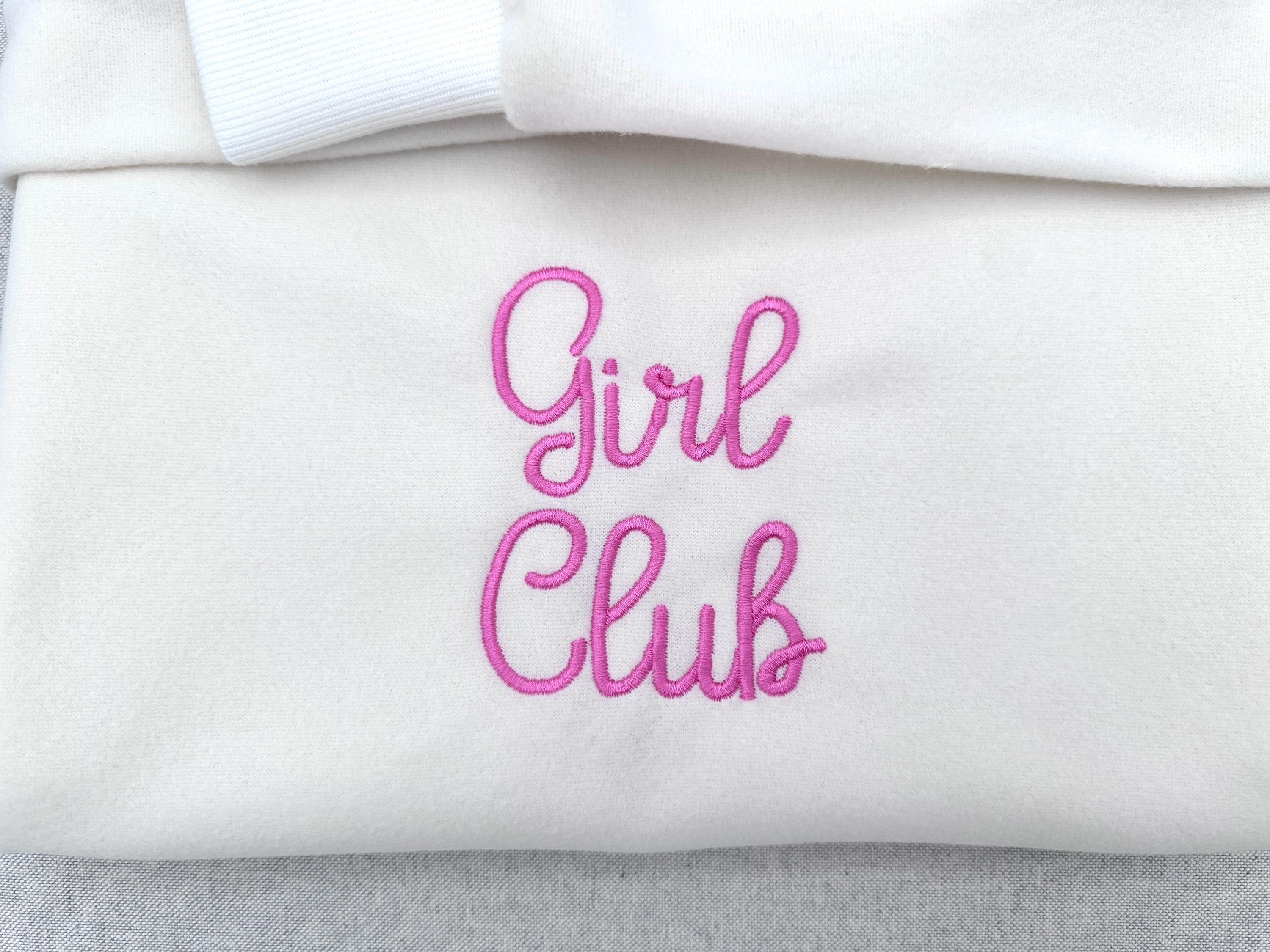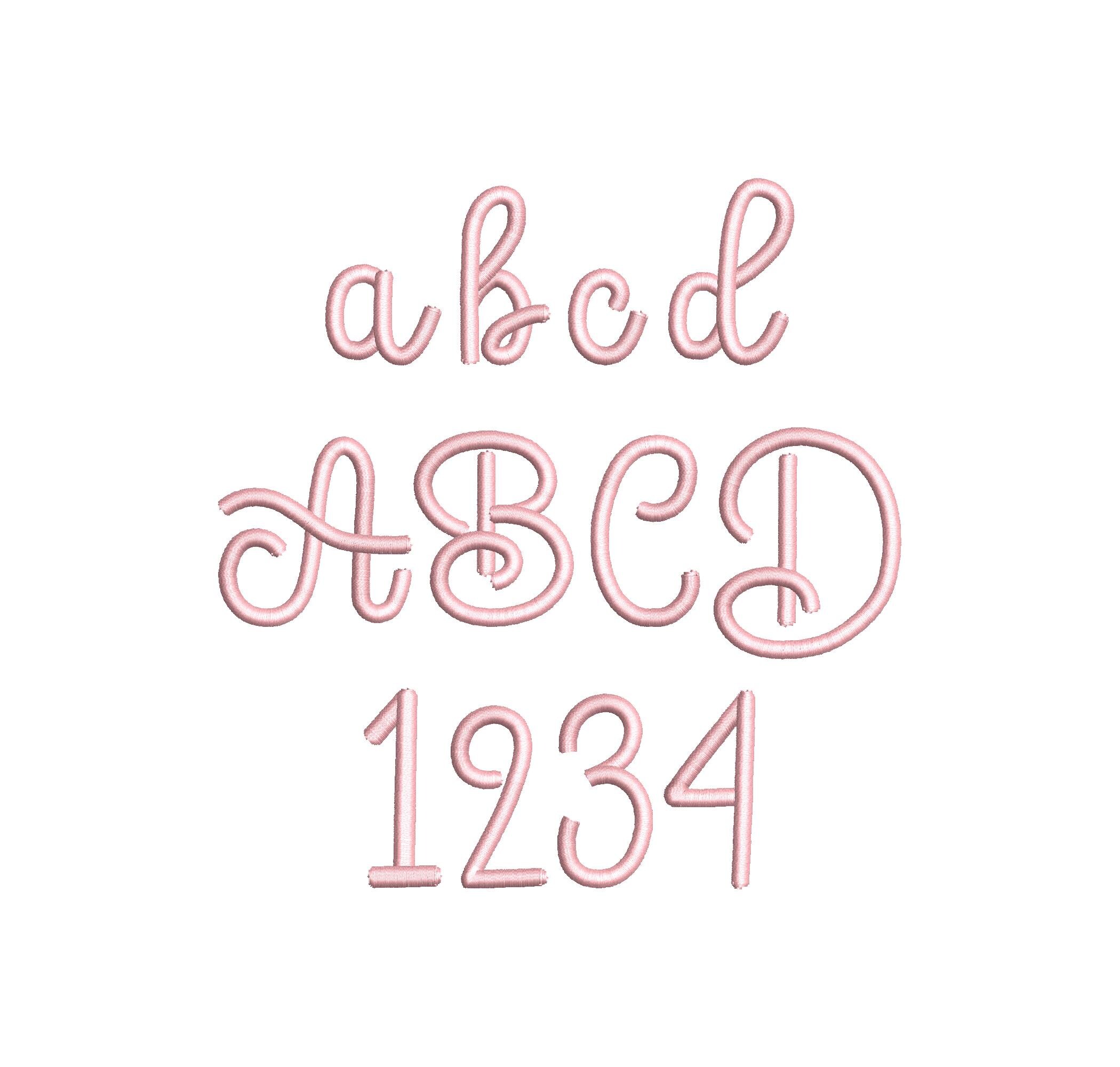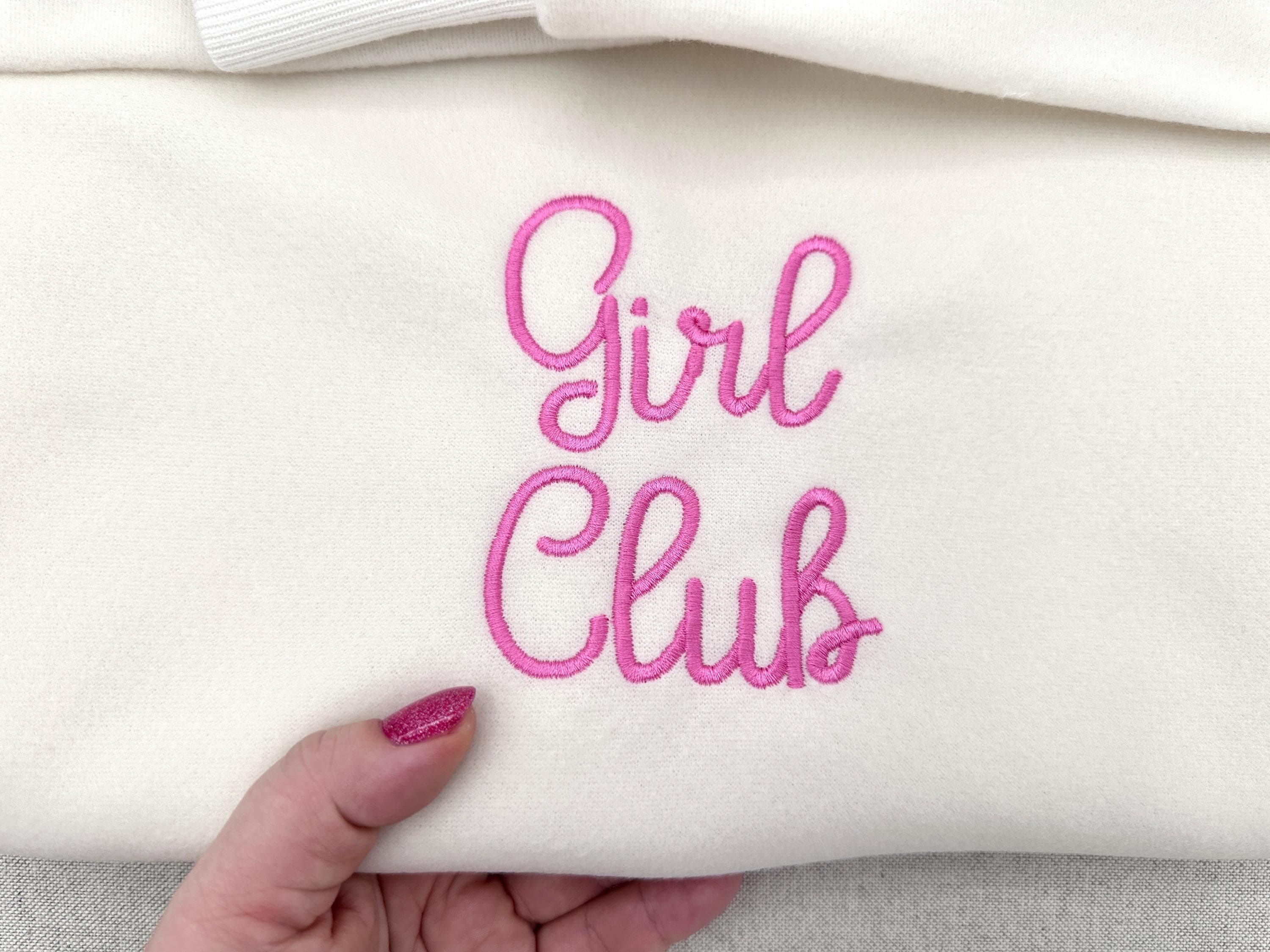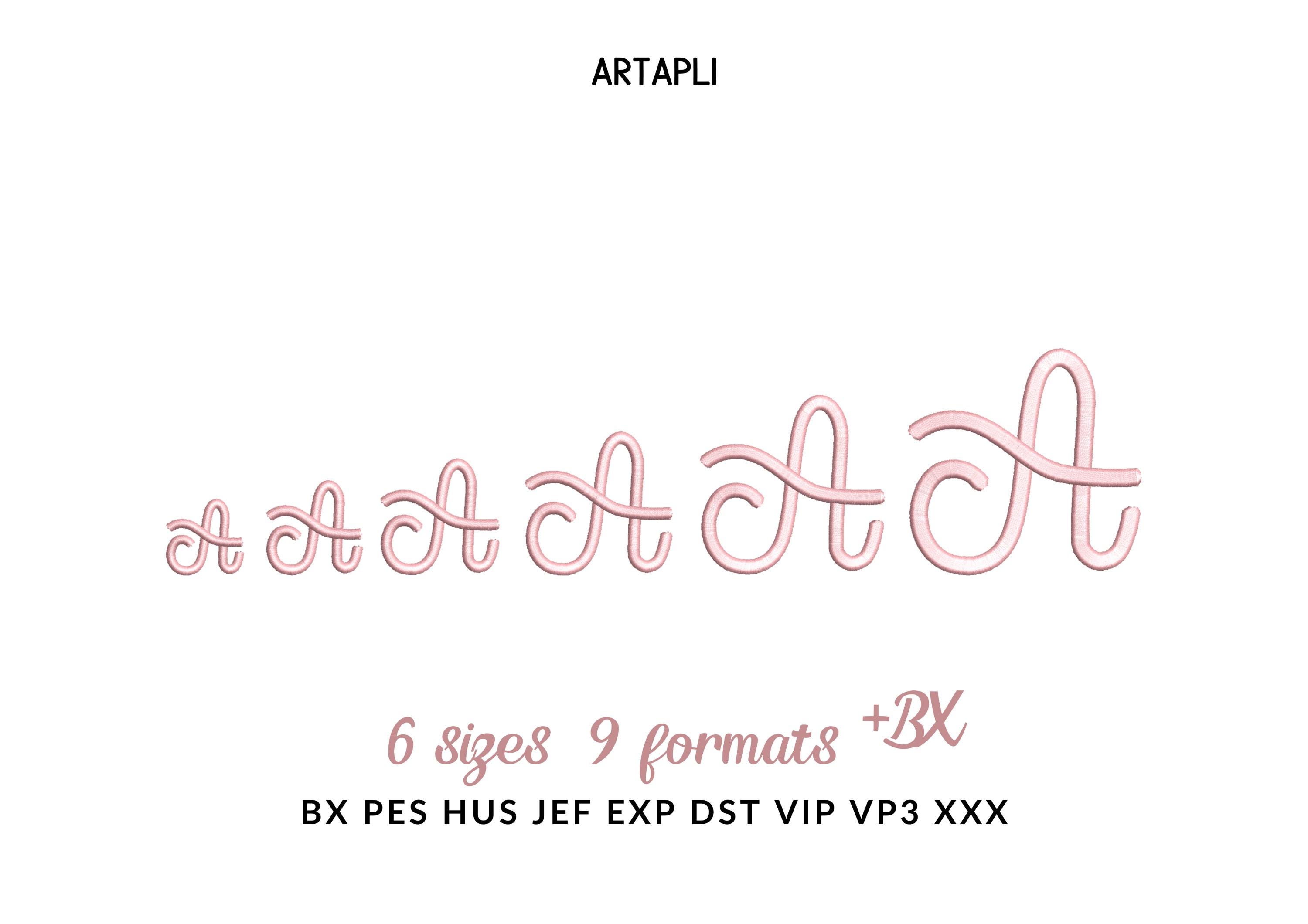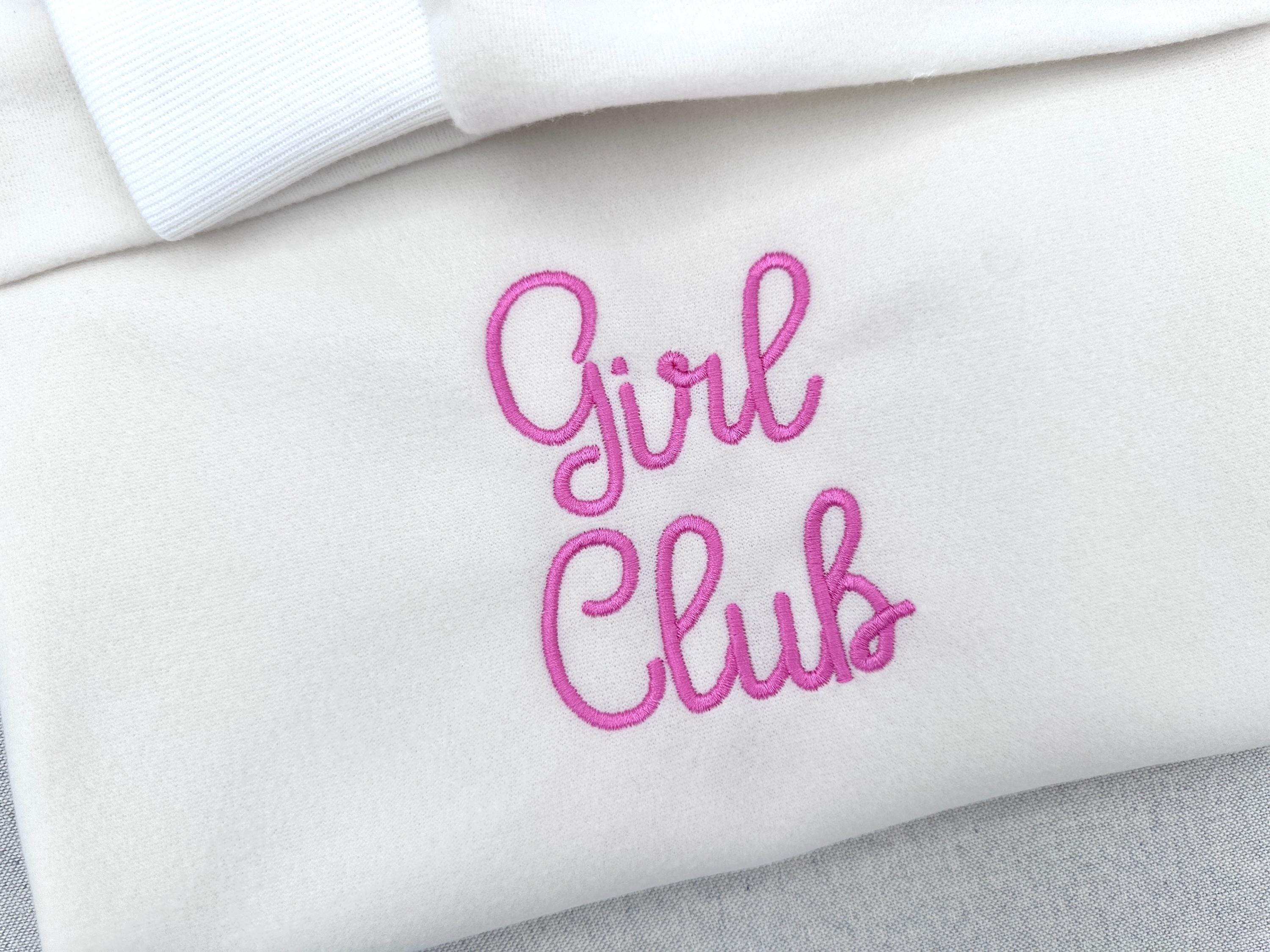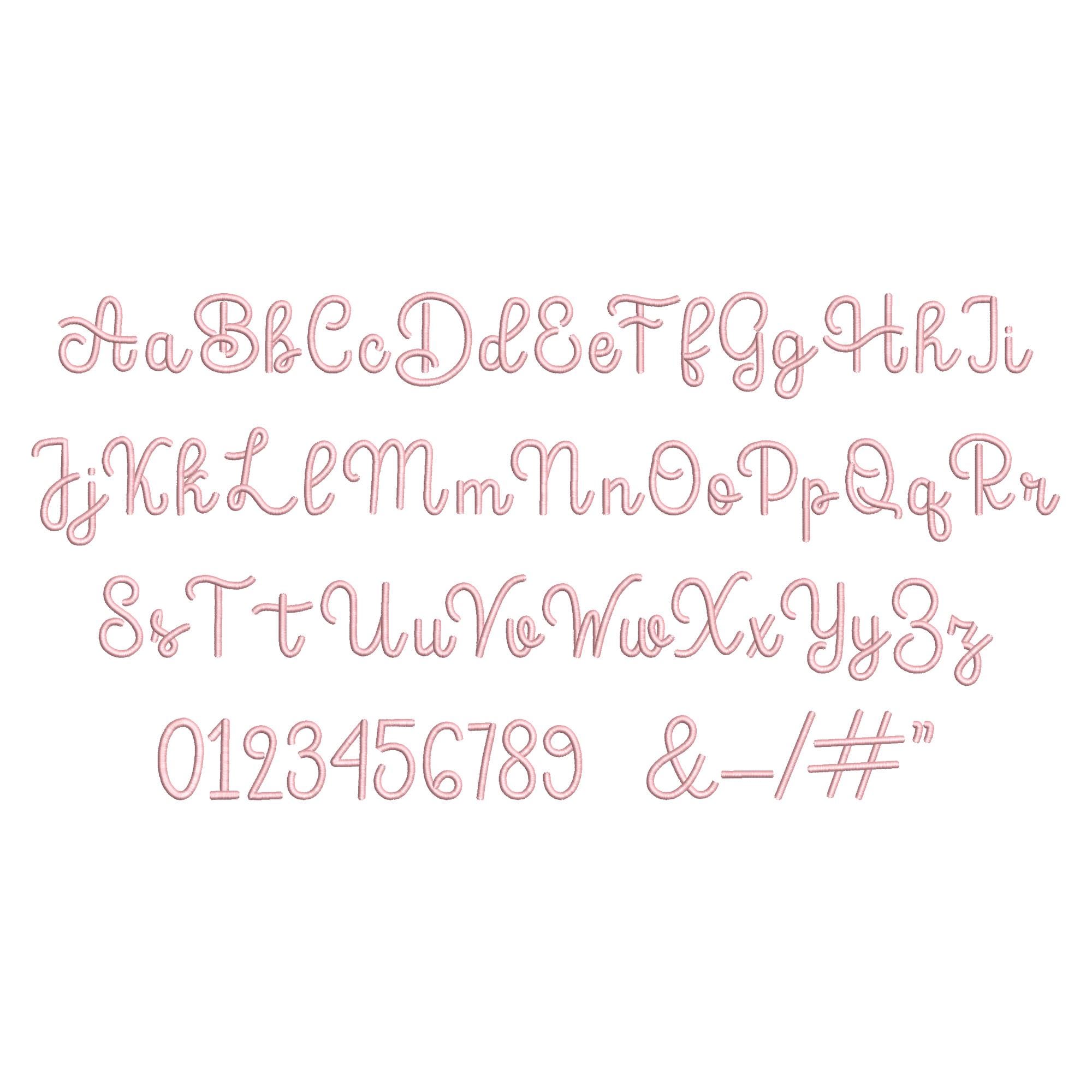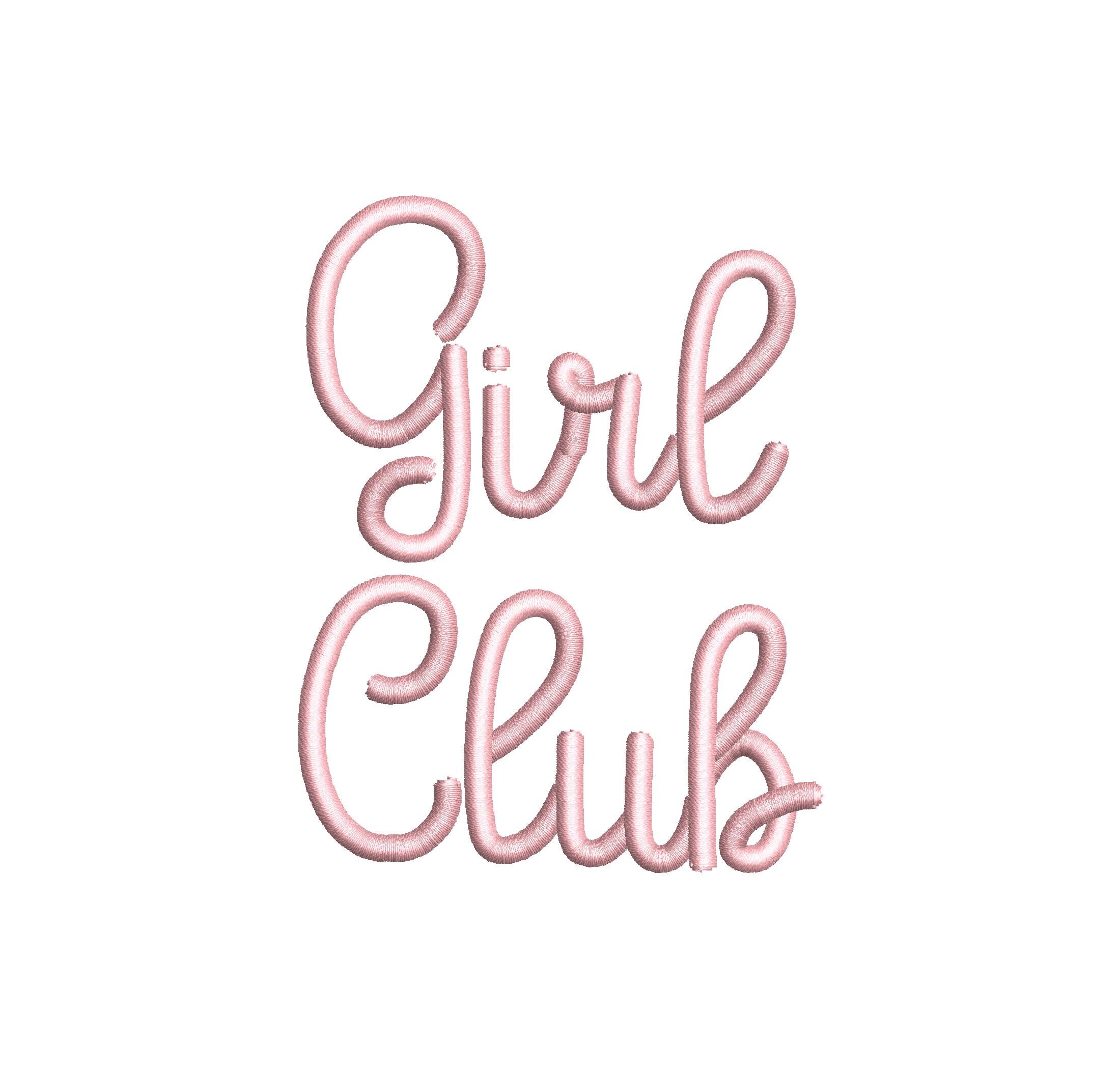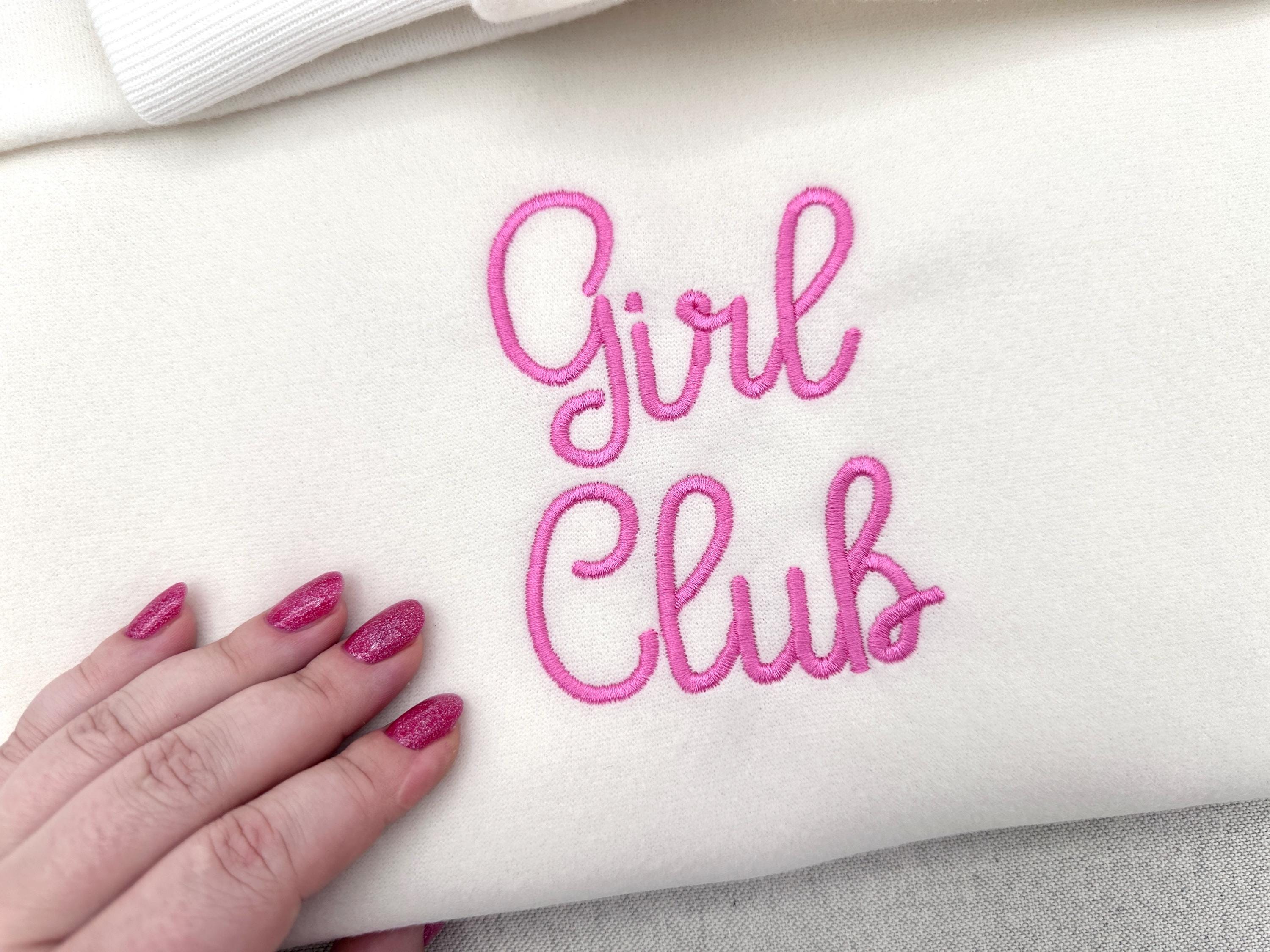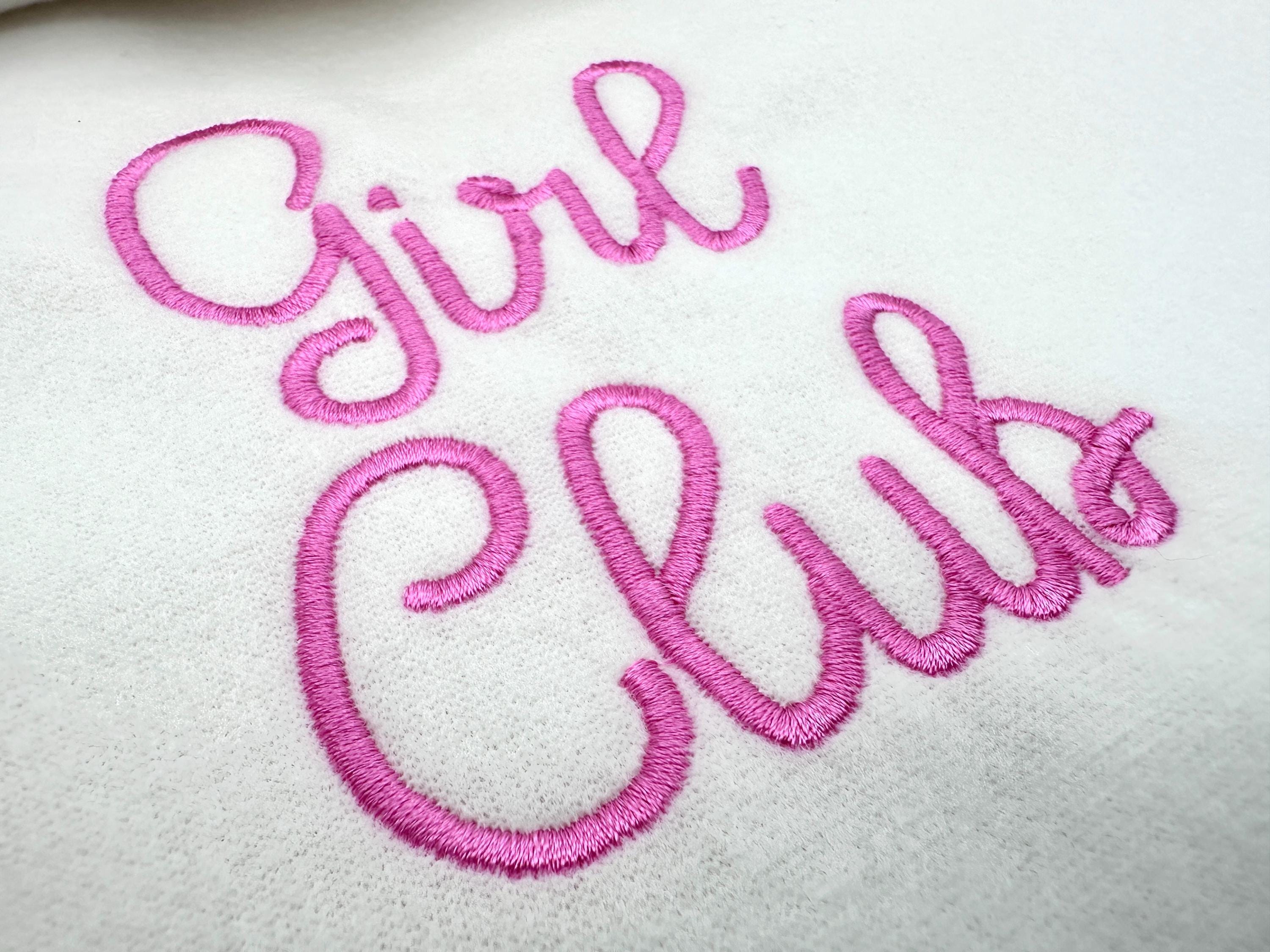
Beautiful FONT Sugar Satin Alphabet script handwritten letters Monogram kids name machine embroidery designs assorted sizes and BX included
Whole alphabet uppercase and lowercase letters, numbers, and punctuation.